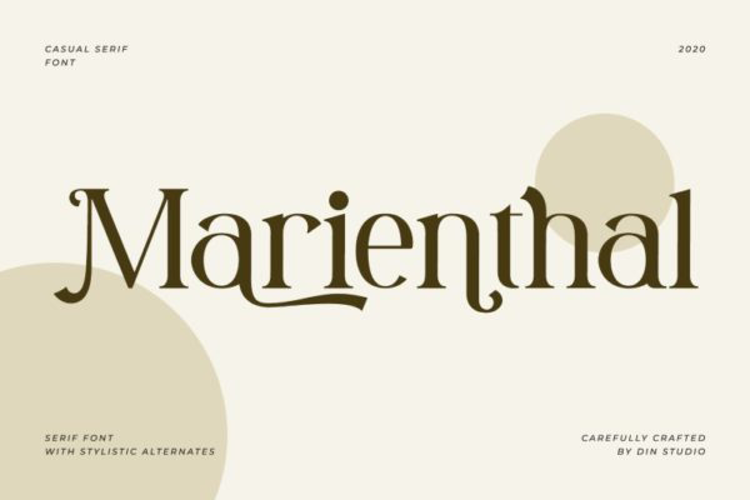
Marienthal Font
Marienthal is casual serif font. Made for any professional project branding. It is the best for branding, printing, wedding and quotes. Every letter has a unique and beautiful touch.